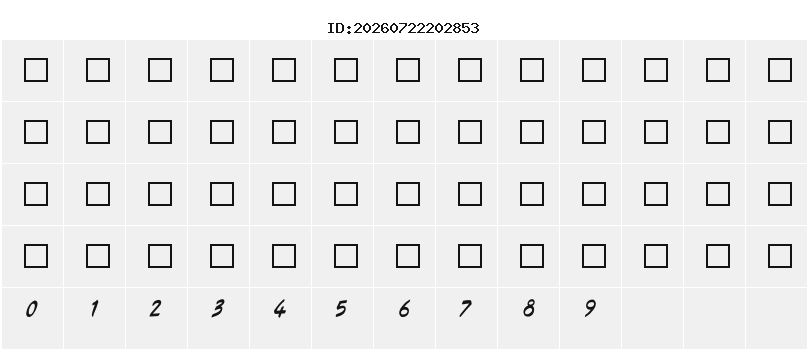
Mv GroupX Avas Preview
• Font Name: Mv GroupX Avas
• Font Style: Fancy
• Font ID: GroupX Avas
• Full Font Name: Mv GroupX Avas Akuru
• PostScript Name: MvGroupXAvas
• Character Count: 102
About Mv GroupX Avas.ttf
Mv GroupX Avas.ttf is a modern, elegant sans-serif font designed for ultimate readability and visual harmony. Perfect for branding, headlines, web design, and print materials.